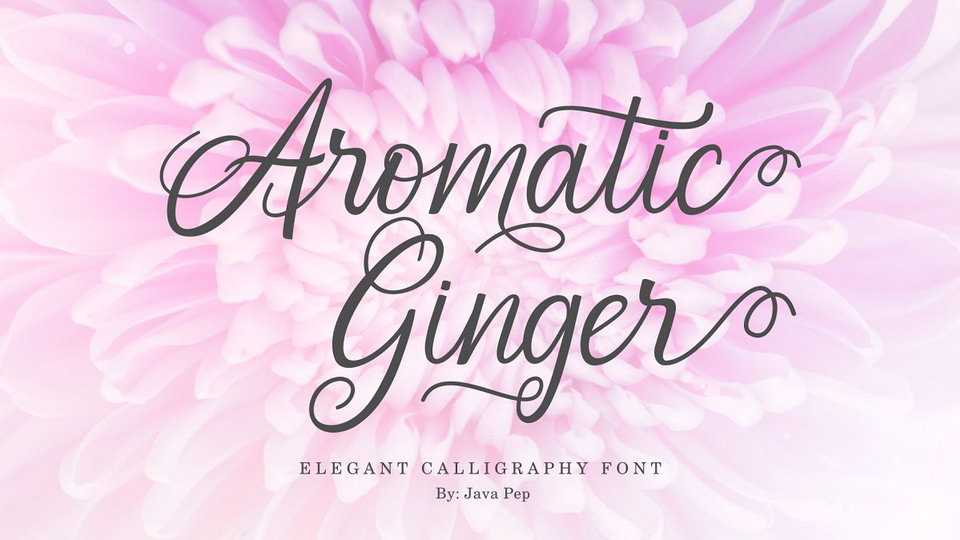
Download Aromatic Ginger font, an elegant calligraphy script inspired by dip pen calligraphy that every letter made many stylistic alternates like swash, tail and etc.
Designer: Java pep